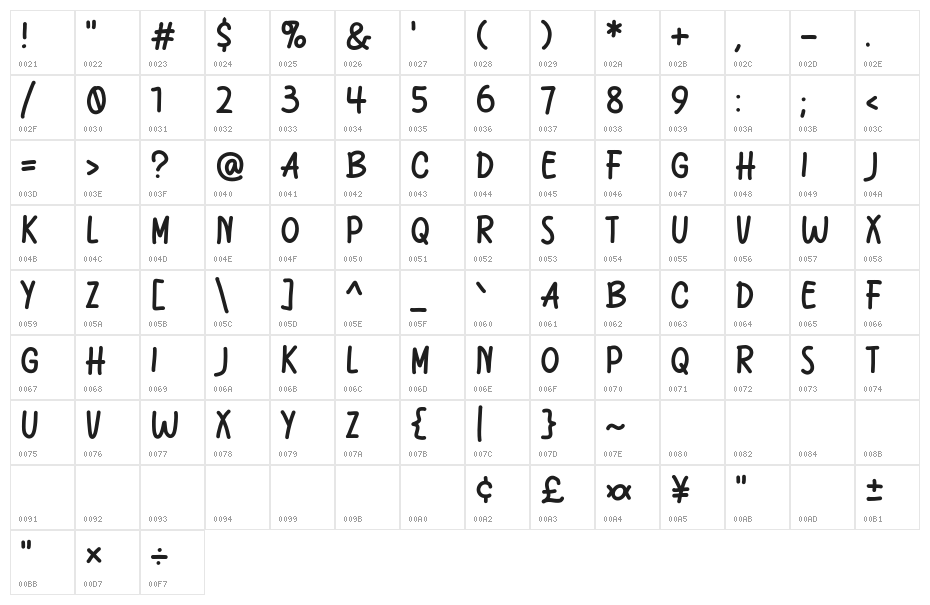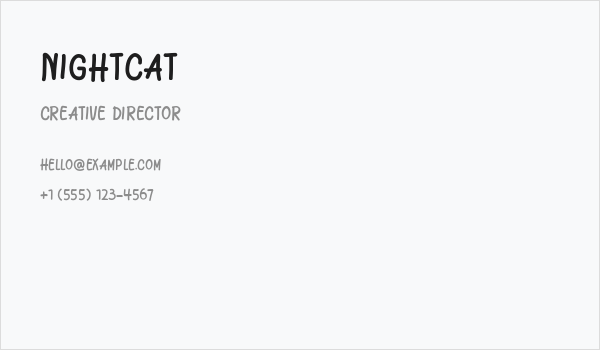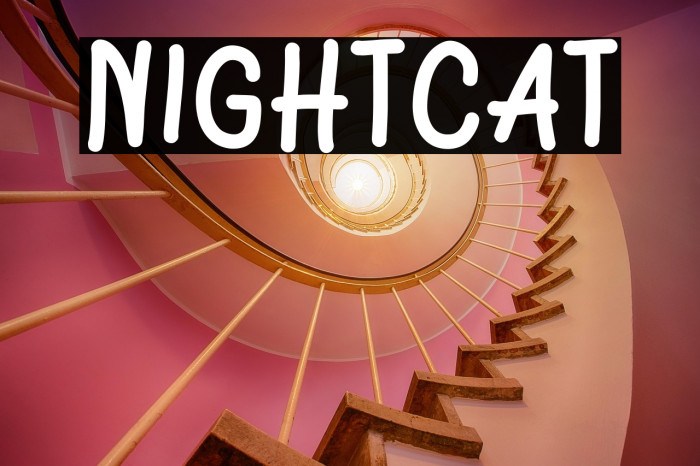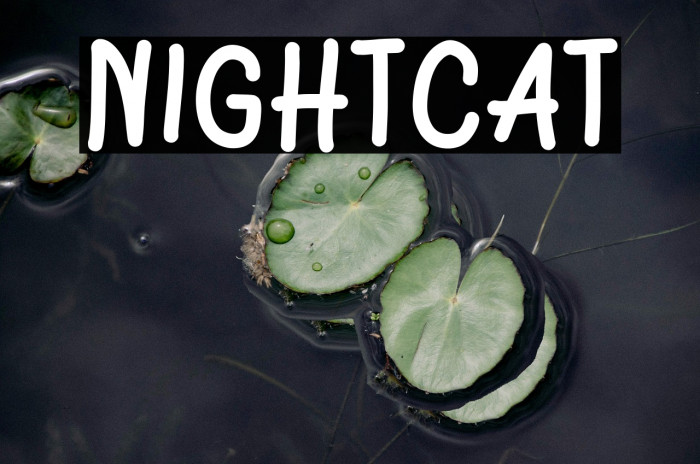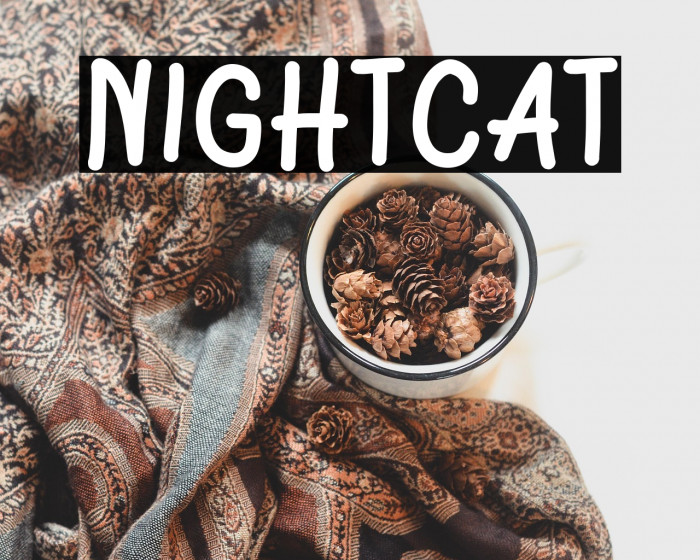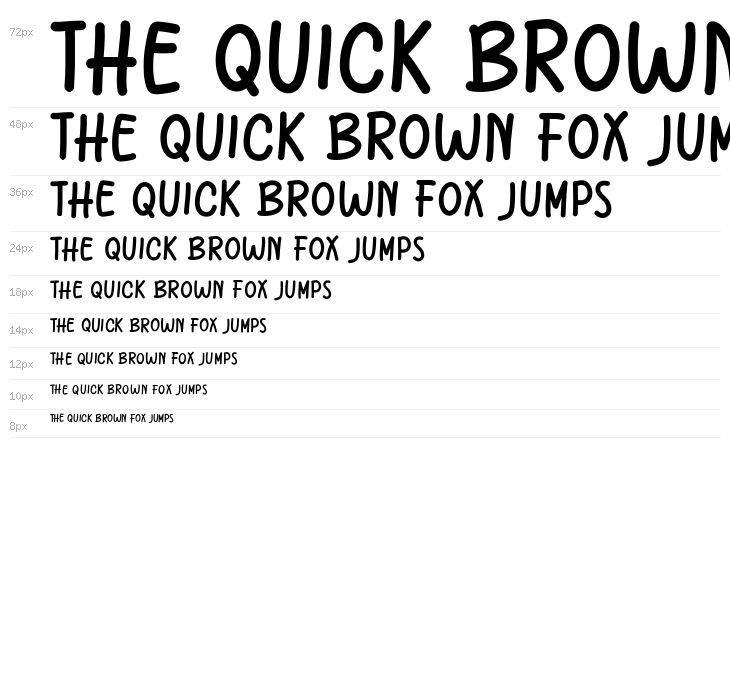
Nightcat Font
Nightcat Description
This playful and energetic font features bold, rounded characters that convey a sense of fun and approachability. The letters are slightly irregular, adding a hand-drawn, whimsical feel. The consistent stroke width throughout the characters gives it a cohesive look, while the rounded edges soften the overall appearance. This font is versatile, suitable for projects that require a friendly and informal touch. It includes a full set of uppercase and lowercase letters, numbers, and a variety of special characters, making it highly functional for diverse design needs.
| Proposed Projects | Ideal for children's books, playful branding, casual invitations, and social media graphics. |